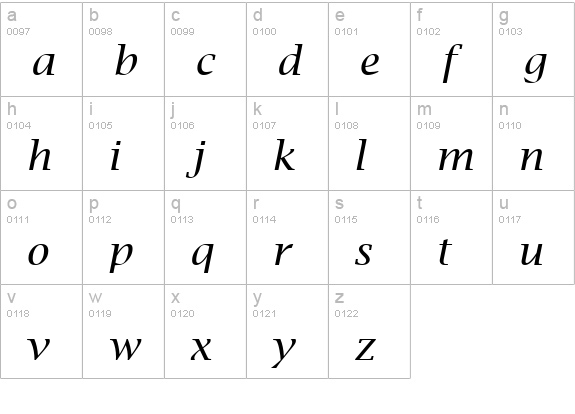
Lucida Bright Italic is a distinctive, italic variant in the Lucida typeface family \xE2\x80\x94 well suited to design and typography projects.
Lucida Bright Italic font is a refined and elegant typeface that exudes sophistication and charm. Its slanted style adds a touch of flair to any text, making it perfect for conveying a sense of elegance and authority. The graceful curves and delicate details of Lucida Bright Italic make it a versatile choice for a wide range of design projects, from formal invitations to editorial layouts. What's even better is that Lucida Bright Italic font is available for free download at FontsMarket.com. This means you can easily access this exquisite font and enhance your design projects without any cost. Don't miss out on the opportunity to add this timeless and stylish typeface to your font collection. Download Lucida Bright Italic today and elevate your designs to new heights of sophistication and class.